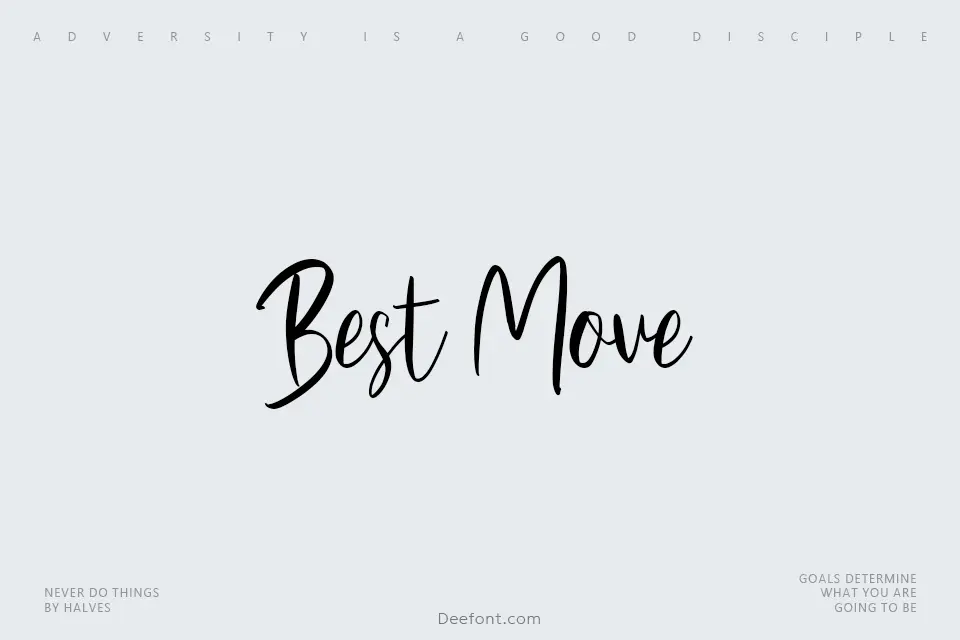
Best Move Font
Best Move is a contemporary handwritten script font that brings casual elegance and playful energy to your designs. With its smooth, flowing strokes and natural letterforms, this typeface exudes warmth and personality. Ideal for posters, titles, logos, branding projects, and greeting card designs, Best Move adds a personal touch to any creative work. The font’s friendly yet sophisticated appearance makes it suitable for modern packaging, social media graphics, and artistic compositions.